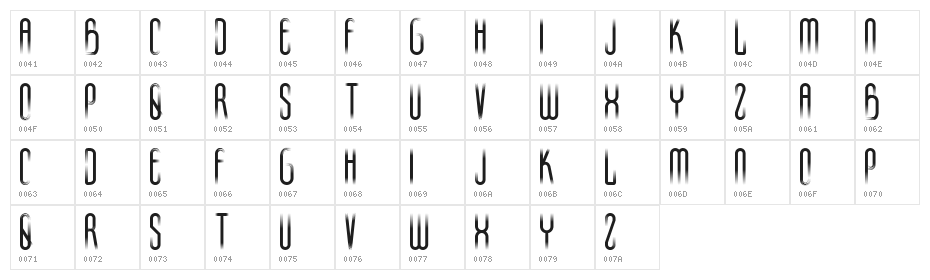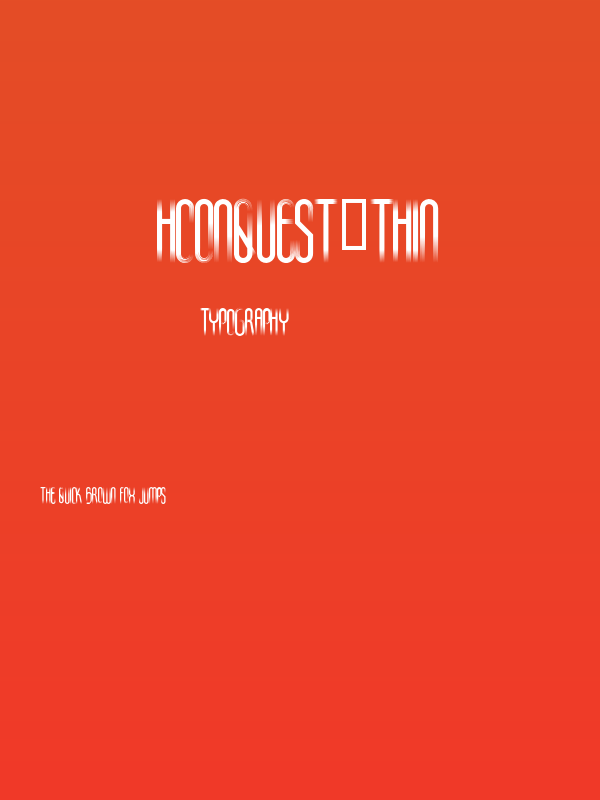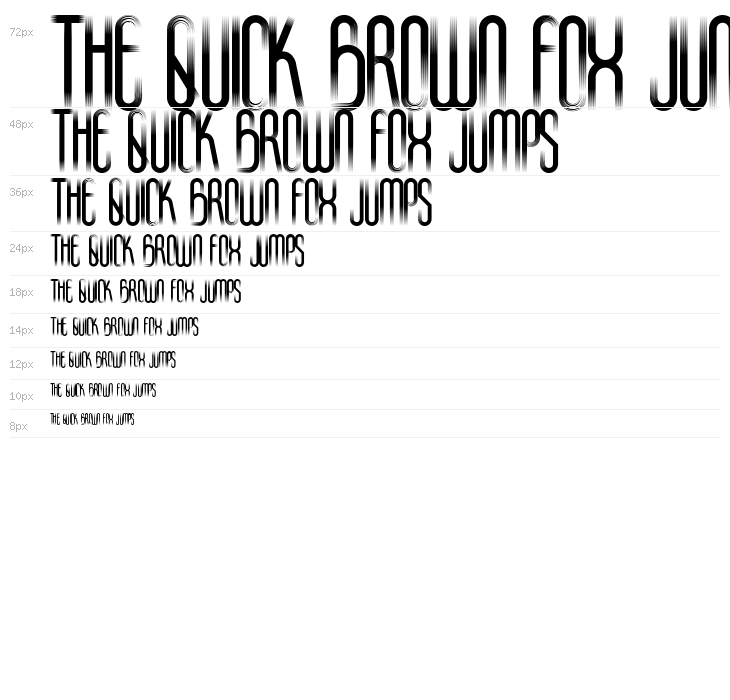
HConquest-Thin Font
HConquest-Thin Description
This font features a modern and futuristic design with elongated, narrow characters that exhibit a unique gradient effect, giving the impression of motion or speed. The uppercase letters are tall and slender, with a consistent height across the alphabet. The lowercase letters maintain the same narrow structure, creating a cohesive look. The font lacks traditional serifs, emphasizing its contemporary style. The gradient effect adds a dynamic visual element, making it stand out in digital and print media. The overall design is sleek and stylish, suitable for projects that require a bold and innovative aesthetic.
| Proposed Projects | Ideal for technology branding, sci-fi posters, video game titles, and modern advertising. |